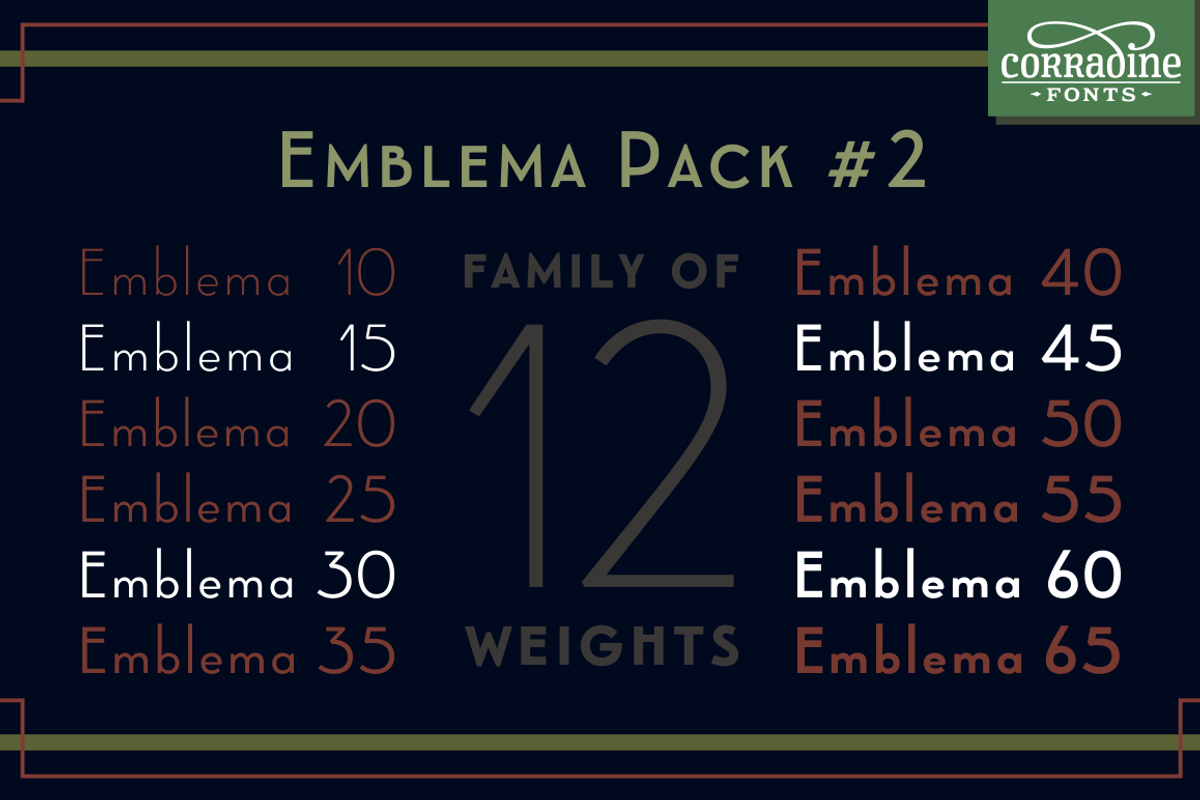
Emblema Font Pack #2
Emblema Font Pack #2 by Corradine Fonts is a font selected for branding, posters, packaging, typography.
- The Emblemas's Pack #2 contains just 4 selected fonts of the family to combine them in a proper way.
- The Pack contains the following Fonts: Emblema 15 Emblema 30 Emblema 45 Emblema 60 Show More
- The Emblemas's Pack #2 contains just 4 selected fonts of the family to combine them in a proper way.
- The Pack contains the following Fonts: Emblema 15 Emblema 30 Emblema 45 Emblema 60 Show More
- Open Type users could acces to extensive set of alternative and ornamental characters including 3 different size sets of caps, so versatilit
Emblema Font Pack #2 by Corradine Fonts fits naturally into Branding, posters, packaging, typography.